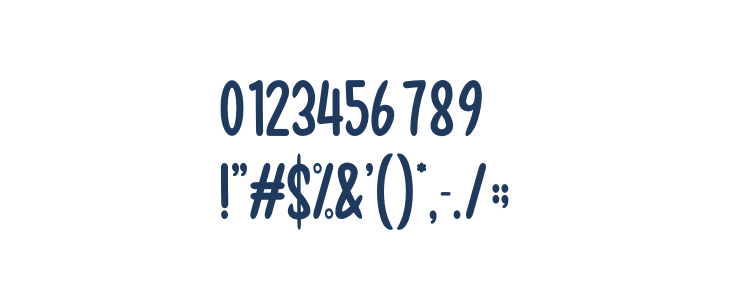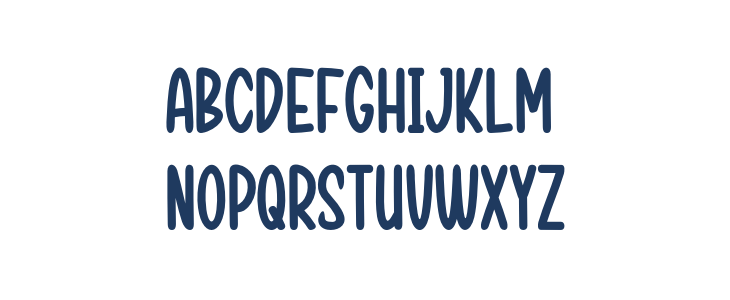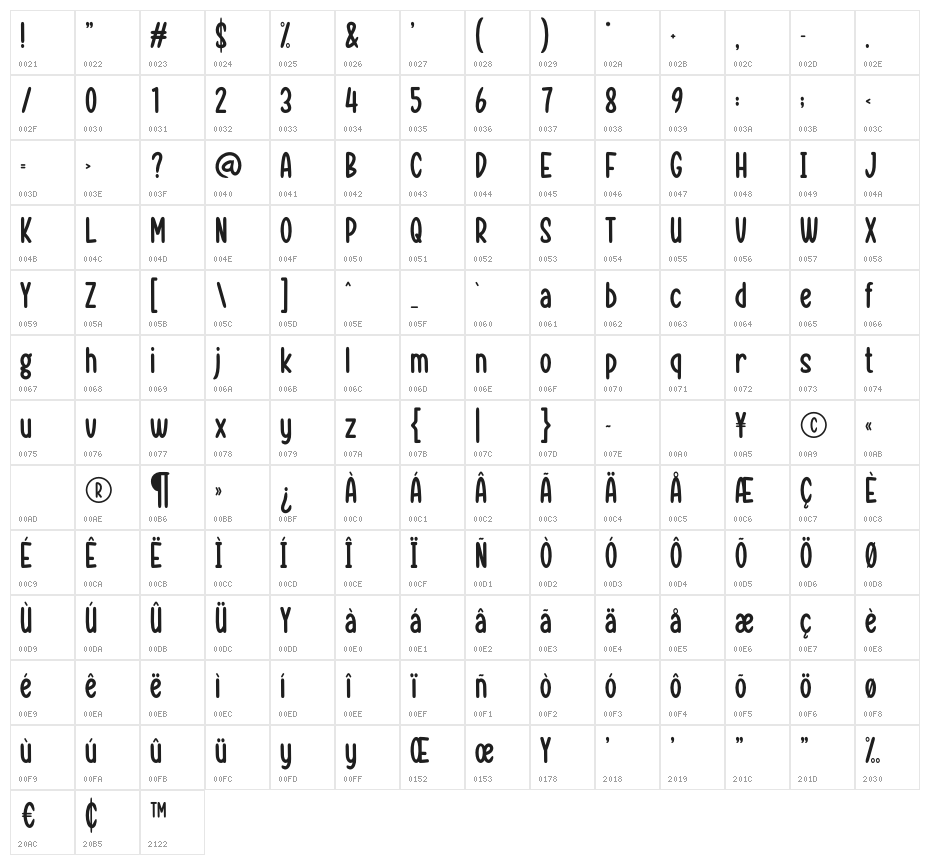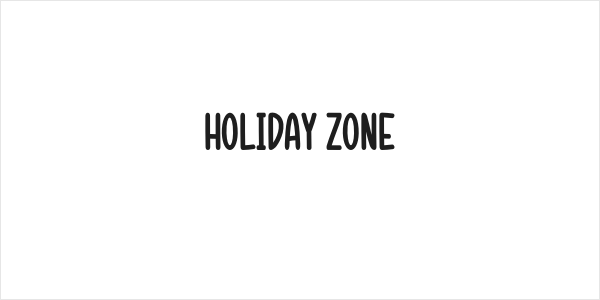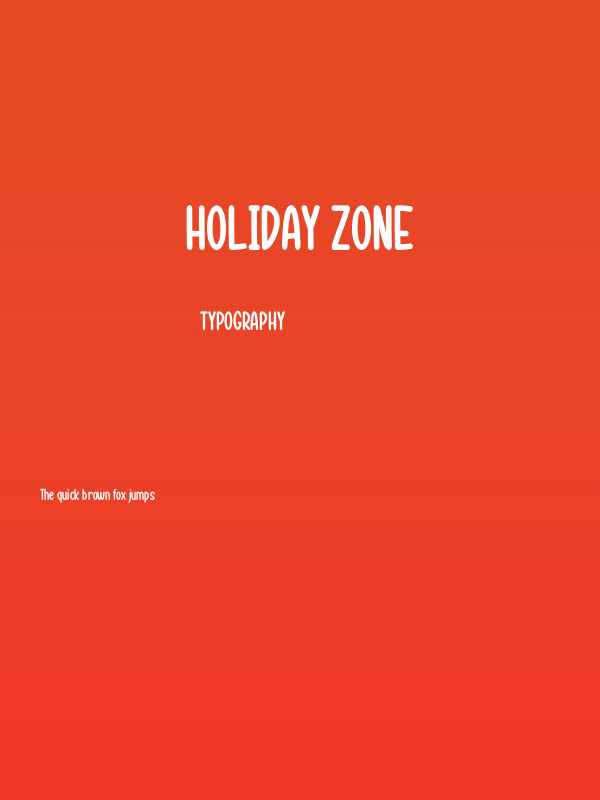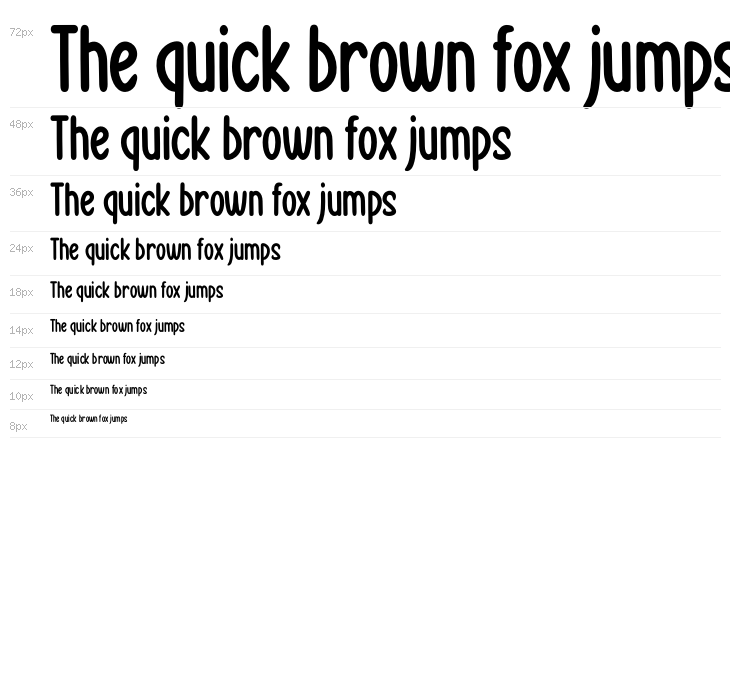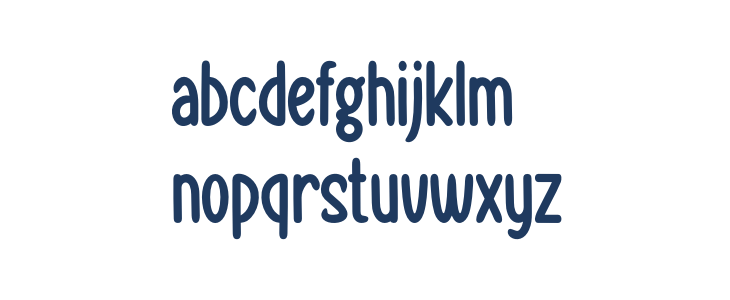
HOLIDAY ZONE Font
HOLIDAY ZONE Description
A playful, rounded sans-serif font with uniform stroke width, friendly curves, and a hand-drawn appearance. The characters are tall with a slightly condensed width, and the overall look is casual and approachable.
| Overall Style | Playful, Handwritten, Casual |
| Use Case | Headlines, Posters, Children's materials, Informal branding |
| Proposed Projects | Children's books, greeting cards, posters, party invitations, branding for playful products. |